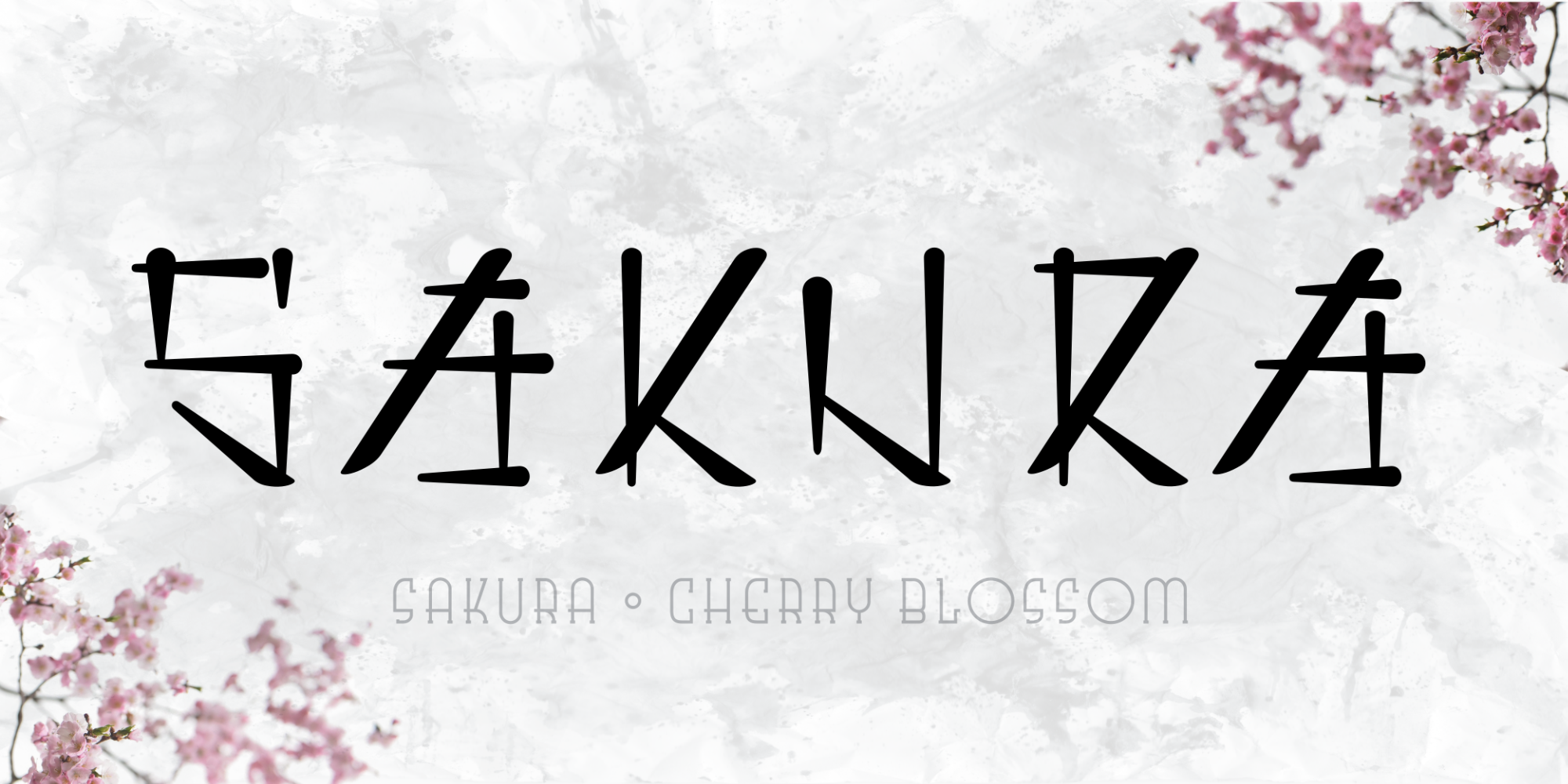
The Sakura Font is an excellent choice for designs that aim for a delicate, elegant, and often Asian-inspired or nature-themed aesthetic, reminiscent of cherry blossoms. Imagine it gracing the invitations for a spring wedding, adding a poetic touch to a Japanese-themed restaurant menu, or bringing a serene beauty to minimalist product packaging. It's also perfectly suited for contemplative book covers, artistic photography watermarks, charming greeting cards, and any project where you want to convey a sense of grace, tranquility, and subtle beauty. Its often flowing lines, gentle curves, and unique character make it ideal for conveying elegance and a refined, artistic flair.
What makes the Sakura Font so exciting is its ability to instantly infuse a design with a feeling of lightness and sophisticated charm. It frequently features subtle flourishes or a handcrafted quality that evokes the delicate petals of a cherry blossom, making it feel both unique and timeless. This font has a serene and distinctive personality that can instantly elevate your design, making it feel both intimate and supremely stylish. It’s designed to capture attention with its unassuming beauty, ensuring your message is not just seen, but appreciated for its refined artistry.
The Sakura Font family typically might focus on a few key weights to best maintain its distinctive character, possibly including stylistic alternates or unique ligatures that enhance its flowing or elegant appeal. While it might not always have an extensive range of weights, its strength lies in its unique visual style and inherent expressiveness. These variations empower designers to create a truly captivating and memorable display, ensuring the Sakura Font Free Download can adapt to a wide array of projects while maintaining its signature, graceful charm.